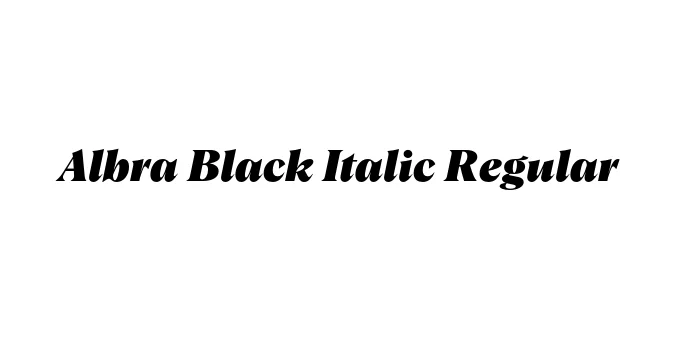
Albra Black Italic Regular
Designed by BumBumType
Albra Black Italic is a centerpiece of the Albra collection, a sophisticated typographic family developed by the foundry BumBumType. This specific weight represents the most expressive and dramatic end of the serif spectrum, characterized by extreme stroke contrast and sharp, elegant terminals. The italicized style introduces a rhythmic fluidity to the letters, creating a sense of movement and high-end craftsmanship that is synonymous with modern editorial excellence.
Designed to bridge the gap between 20th-century classical serifs and contemporary digital aesthetics, Albra Black Italic has become a favorite among graphic designers for its ability to command attention without sacrificing sophistication. Its historical roots lie in the high-contrast display faces of the past, but its execution is tailored for the high-resolution requirements of today's branding and luxury packaging markets, offering a timeless yet fresh visual language.
Albra Black Italic Regular Best Uses
Perfect for luxury lifestyle logos and high-end fashion identity systems.
Ideal for bold magazine headlines, cover art, and distinctive pull-quotes.
Adds a sophisticated and premium feel to boutique product labels and cosmetics.
Creates a strong, elegant visual statement for landing pages and portfolio sites.